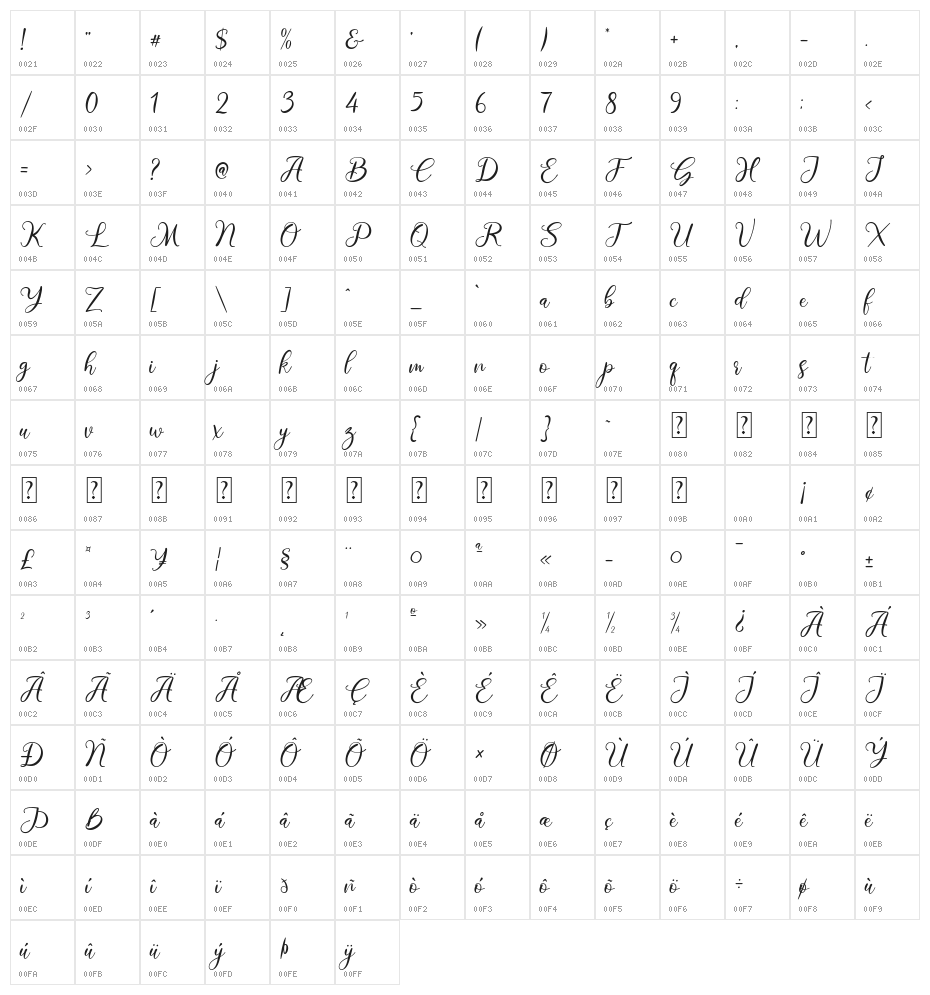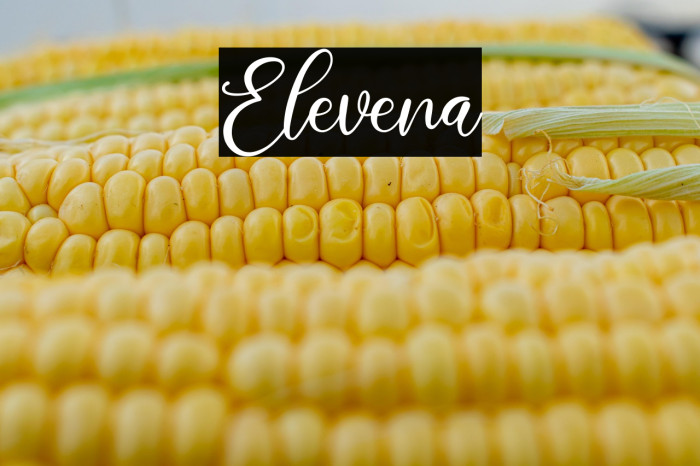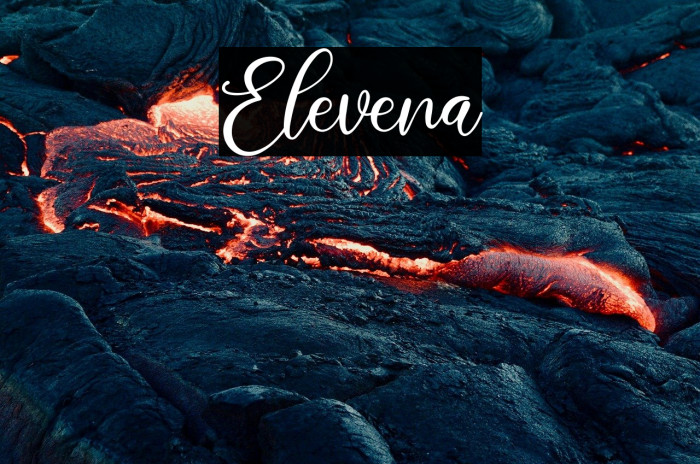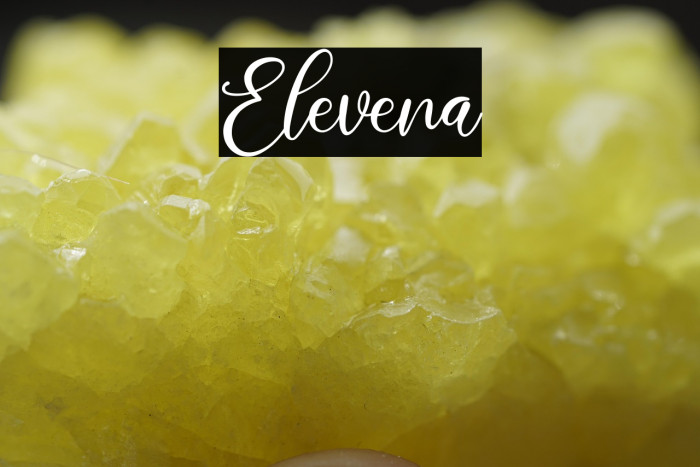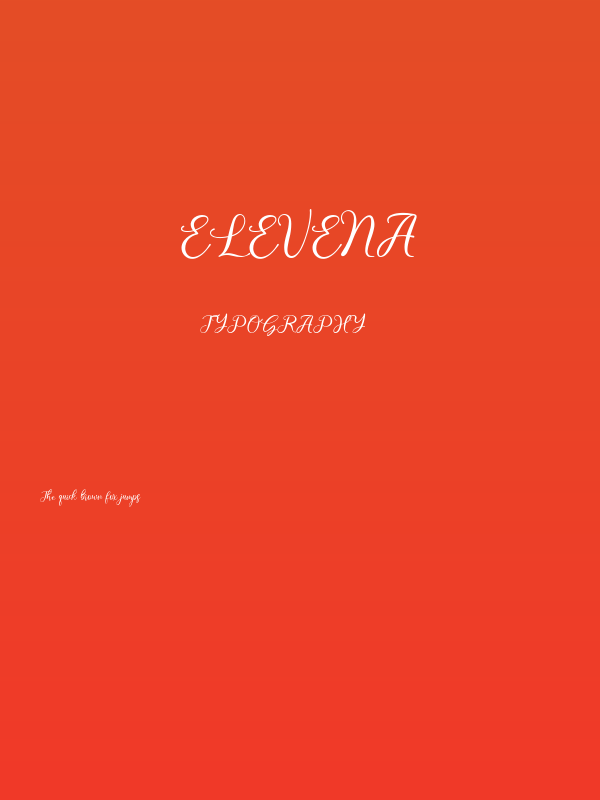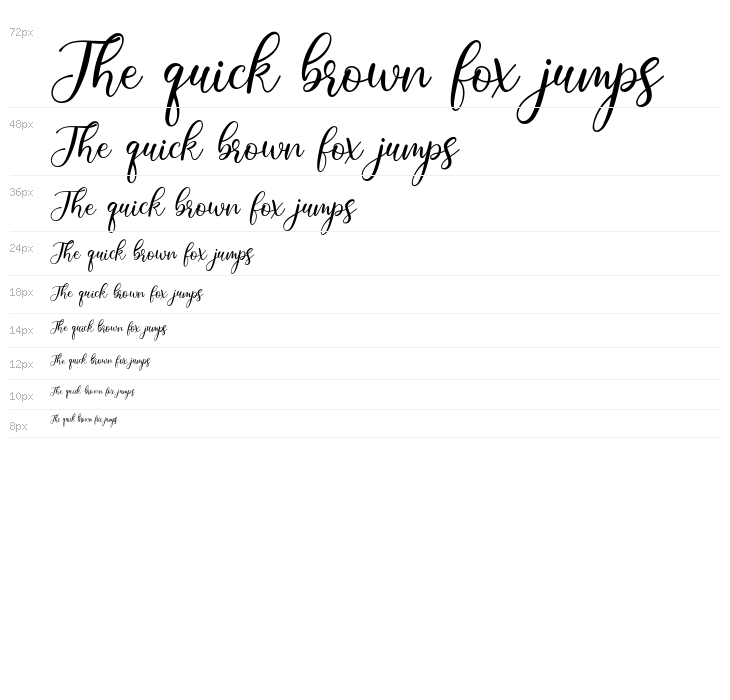
Elevena Font
Elevena Description
This font features an elegant and flowing script style, characterized by its smooth, cursive strokes and graceful curves. The uppercase letters are distinct with their sweeping lines, while the lowercase letters maintain a consistent fluidity, enhancing readability. The numerals and special characters are designed to complement the overall aesthetic, providing a cohesive look. This font exudes a sense of sophistication and charm, making it suitable for formal and decorative applications.
| Overall Style | Elegant, Decorative |
| Proposed Projects | Ideal for wedding invitations, greeting cards, branding, and elegant signage. |